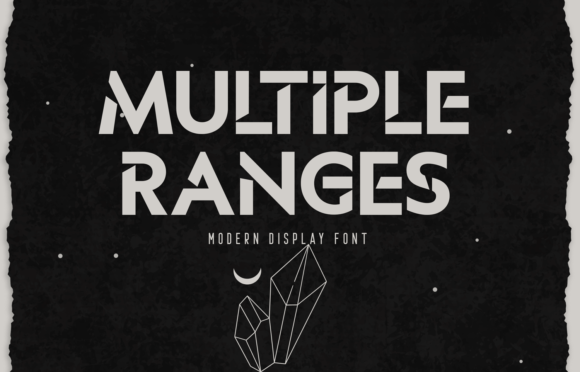
Journey into the realm of typographic artistry, where letters dance in harmonious unison, captivating hearts and igniting imaginations. Introducing Multiple Ranges Font, a display font family that transcends the boundaries of ordinary typefaces, transforming your creative visions into extraordinary masterpieces.
Multiple Ranges Font is a symphony of bold strokes and captivating curves, a visual symphony that dances across the screen, leaving a trail of elegance and sophistication in its wake. Each letter is meticulously crafted, exuding a raw and untamed energy that commands attention and sparks a sense of wonder.
Immerse yourself in the boundless creativity that Multiple Ranges Font unlocks. Whether you're crafting logos that demand attention, designing posters that beg to be noticed, or creating website headers that leave a lasting impression, this font is your secret weapon. Its inherent versatility knows no limits, adapting seamlessly to any project, any style, and any medium.
Unleash your inner artist and let Multiple Ranges Font be your muse. Its thick, bold letters possess an undeniable charm, effortlessly adding depth and dimension to your designs. Experiment with different colors, sizes, and orientations to discover a world of endless possibilities.
Multiple Ranges Font is more than just a collection of letters; it's an experience, a journey into the boundless realm of visual expression. Its every curve and angle is a testament to the power of design, a reminder that even the simplest of elements can evoke profound emotions and leave an indelible mark on the world.
Don't settle for ordinary fonts that blend into the background. Embrace the boldness, the audacity, and the sheer brilliance of Multiple Ranges Font. Let your creativity soar, let your imagination run wild, and see your designs transformed into works of art.
With Multiple Ranges Font as your secret weapon, you'll captivate audiences, ignite conversations, and leave a lasting impression that lingers long after the final pixel fades away. Join the ranks of design pioneers who dare to be different, who embrace the power of typography, and who leave their unique mark on the world, one letter at a time.